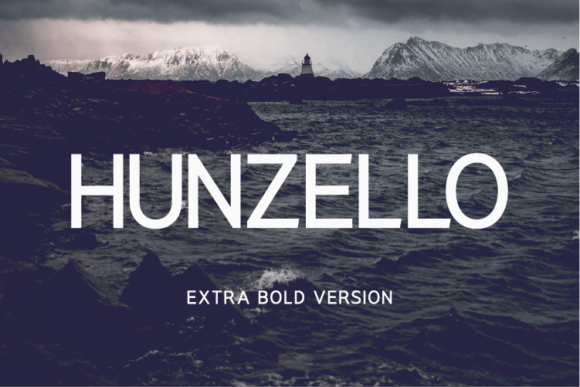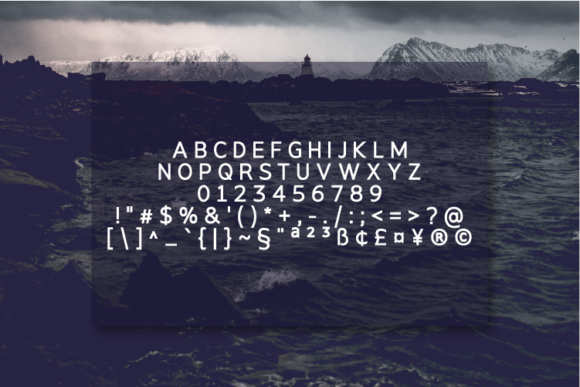
Hunzello Extra Bold Font
About Hunzello Extra Bold Font
Hunzello is a minimalist and modern sans serif font with an undeniably clean feel. With its neat and beautiful arrangement of letters, this typeface will look outstanding in both formal and non-formal designs.